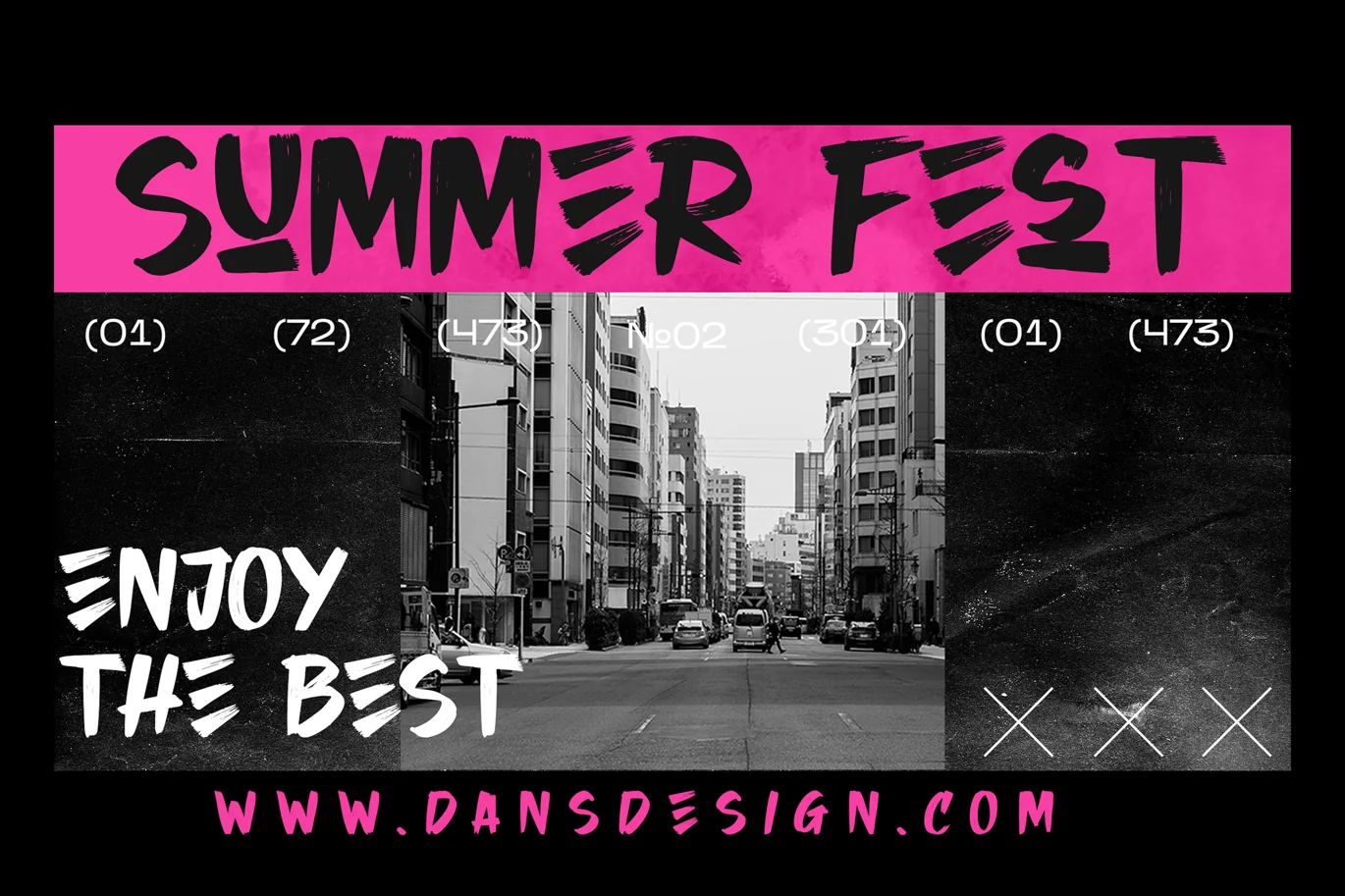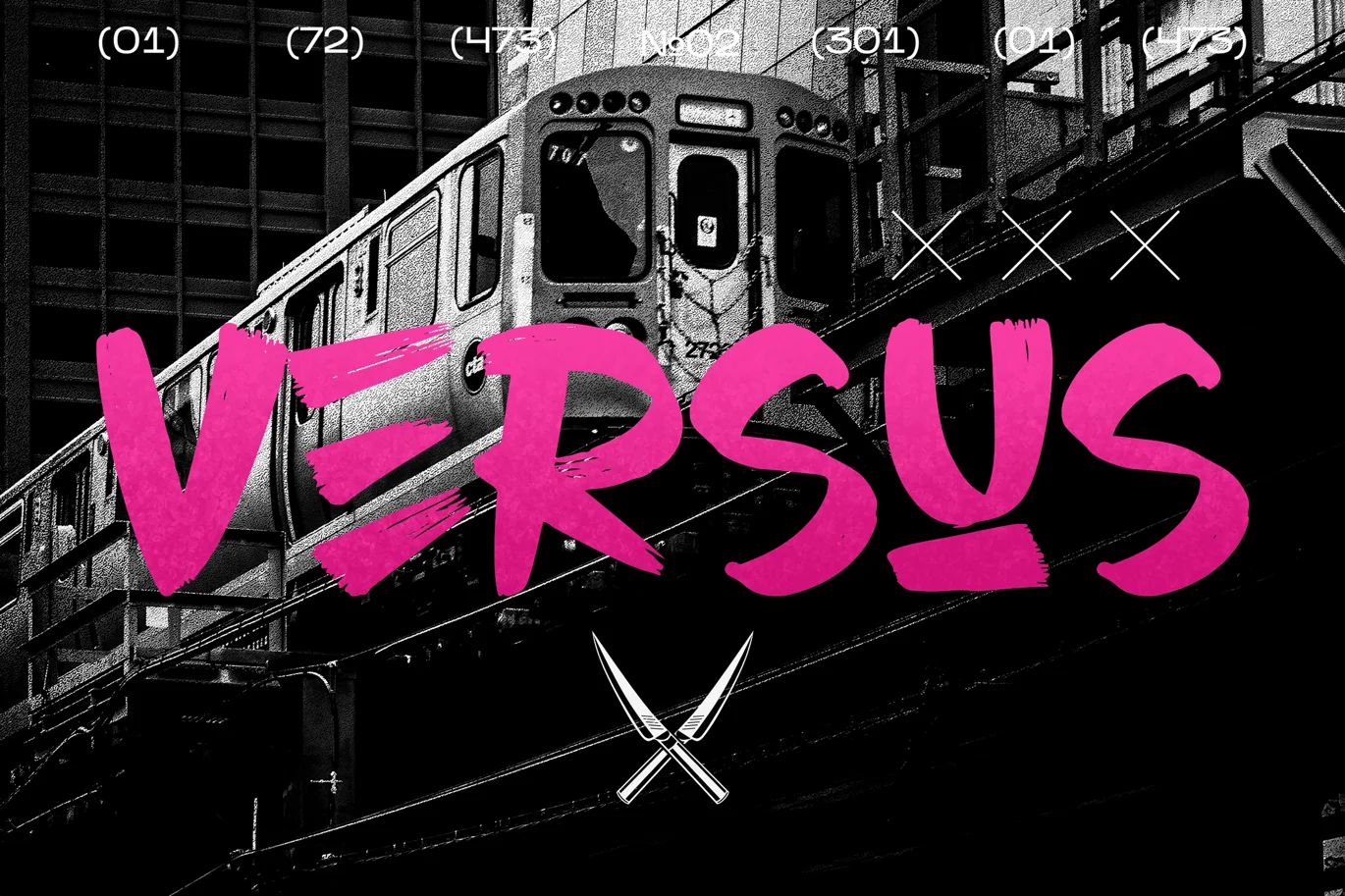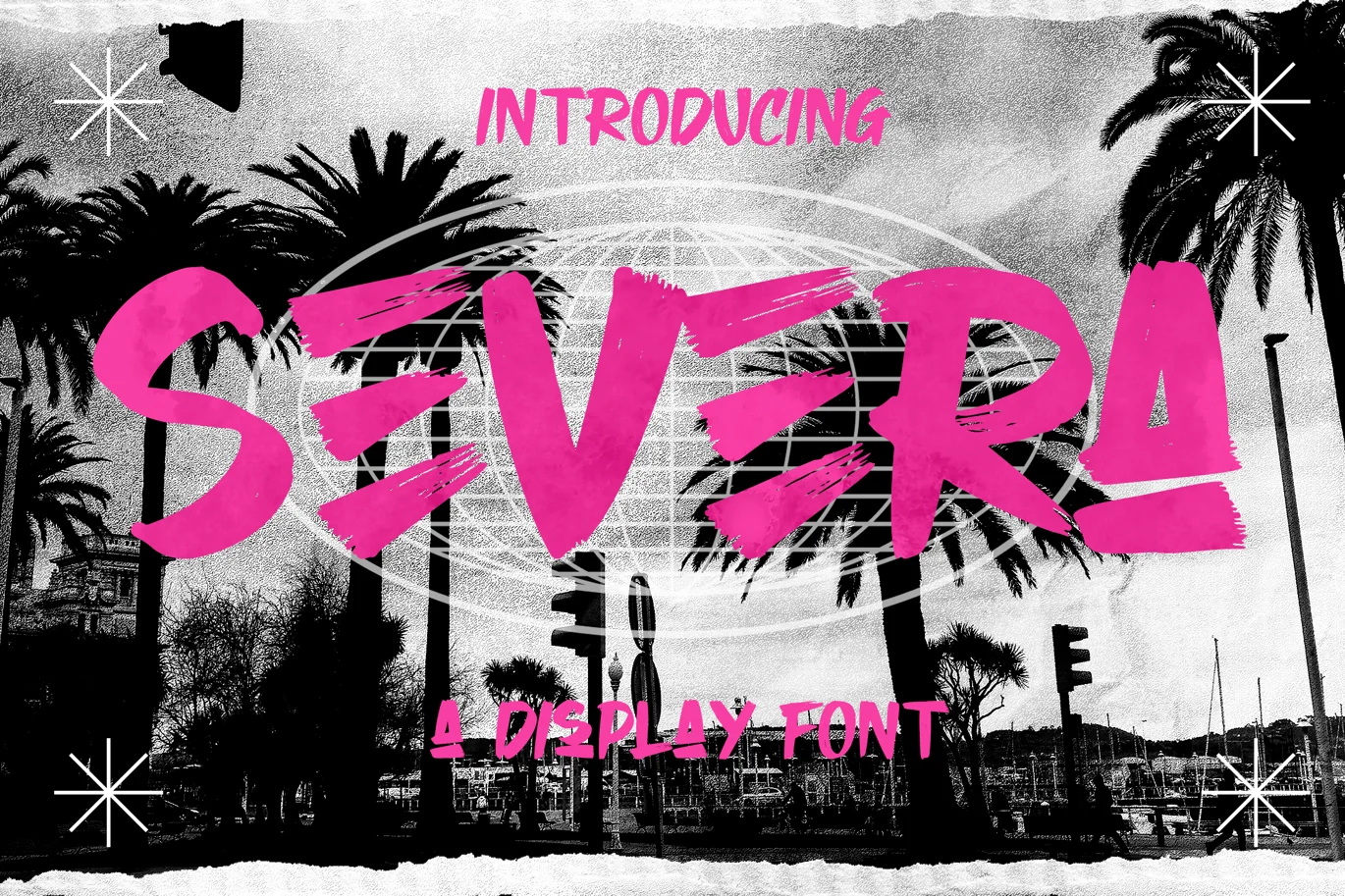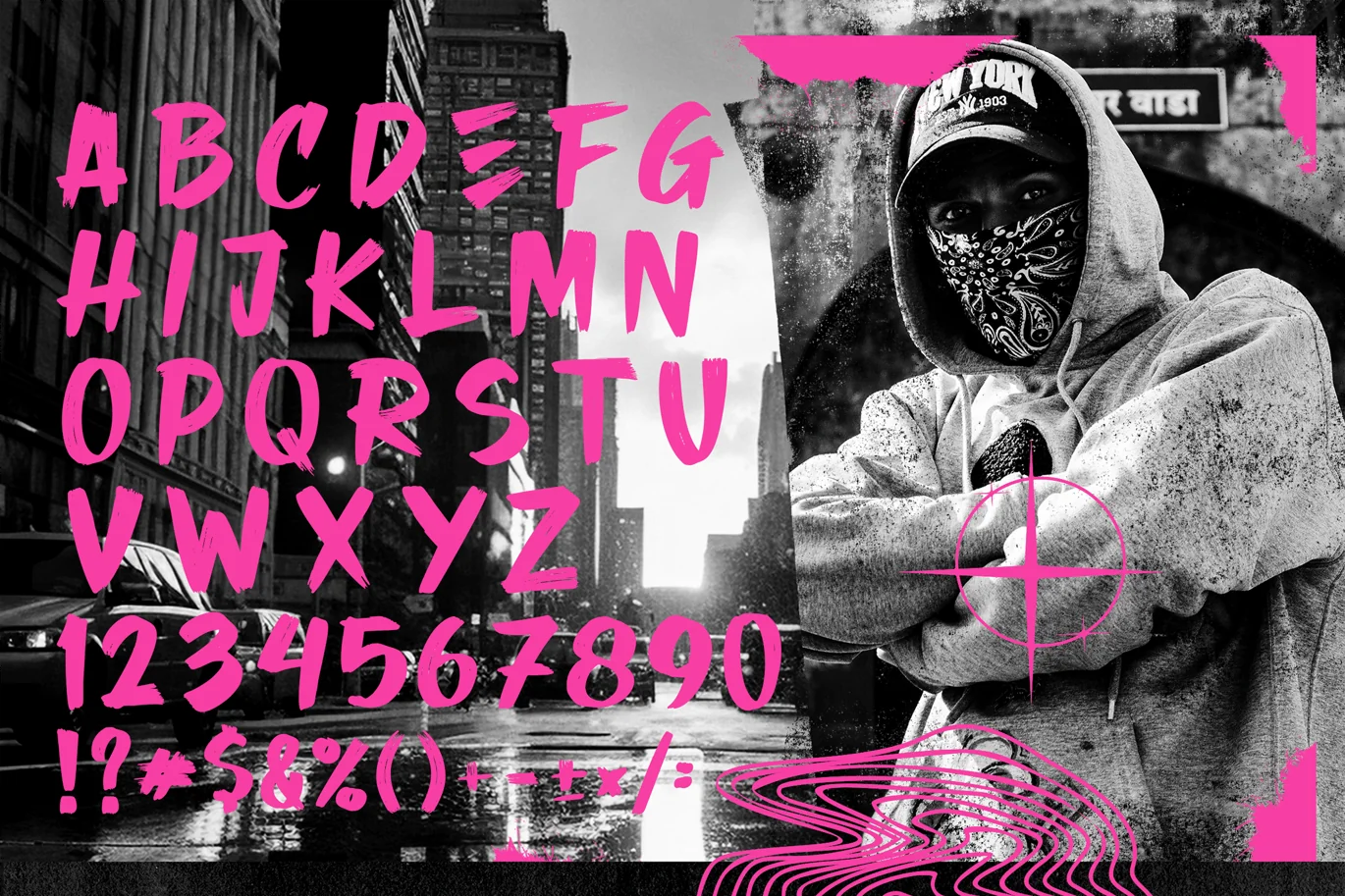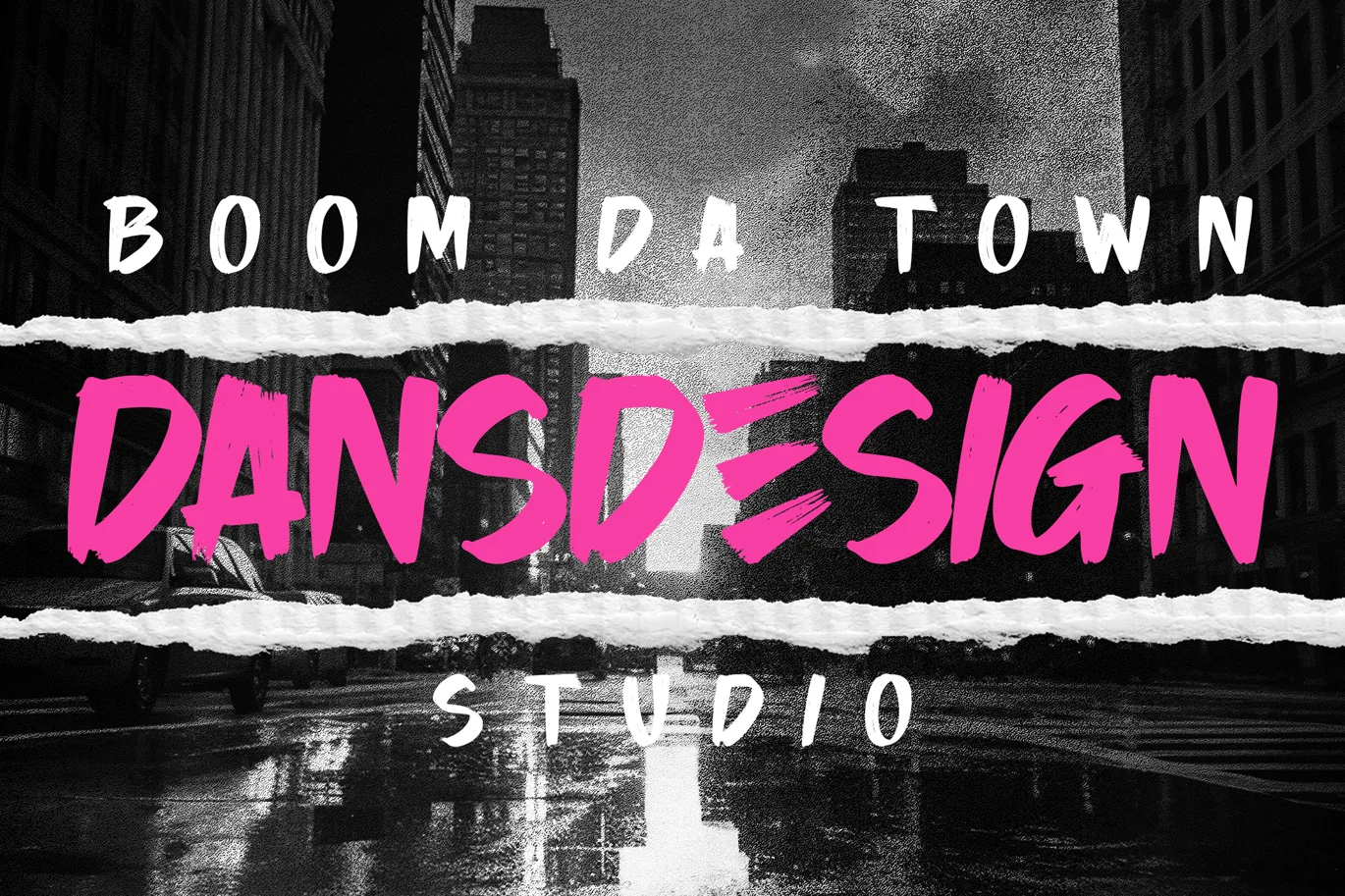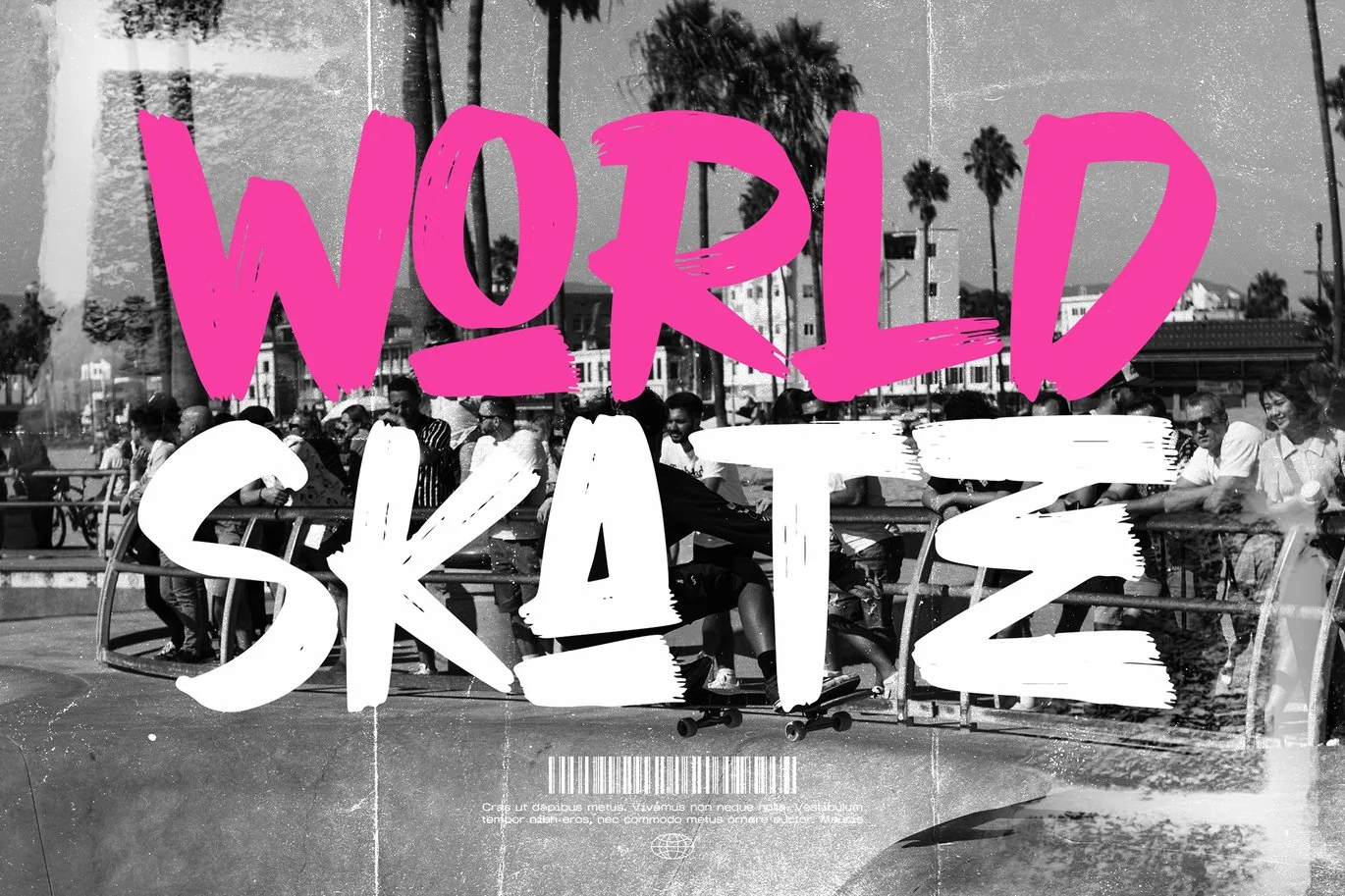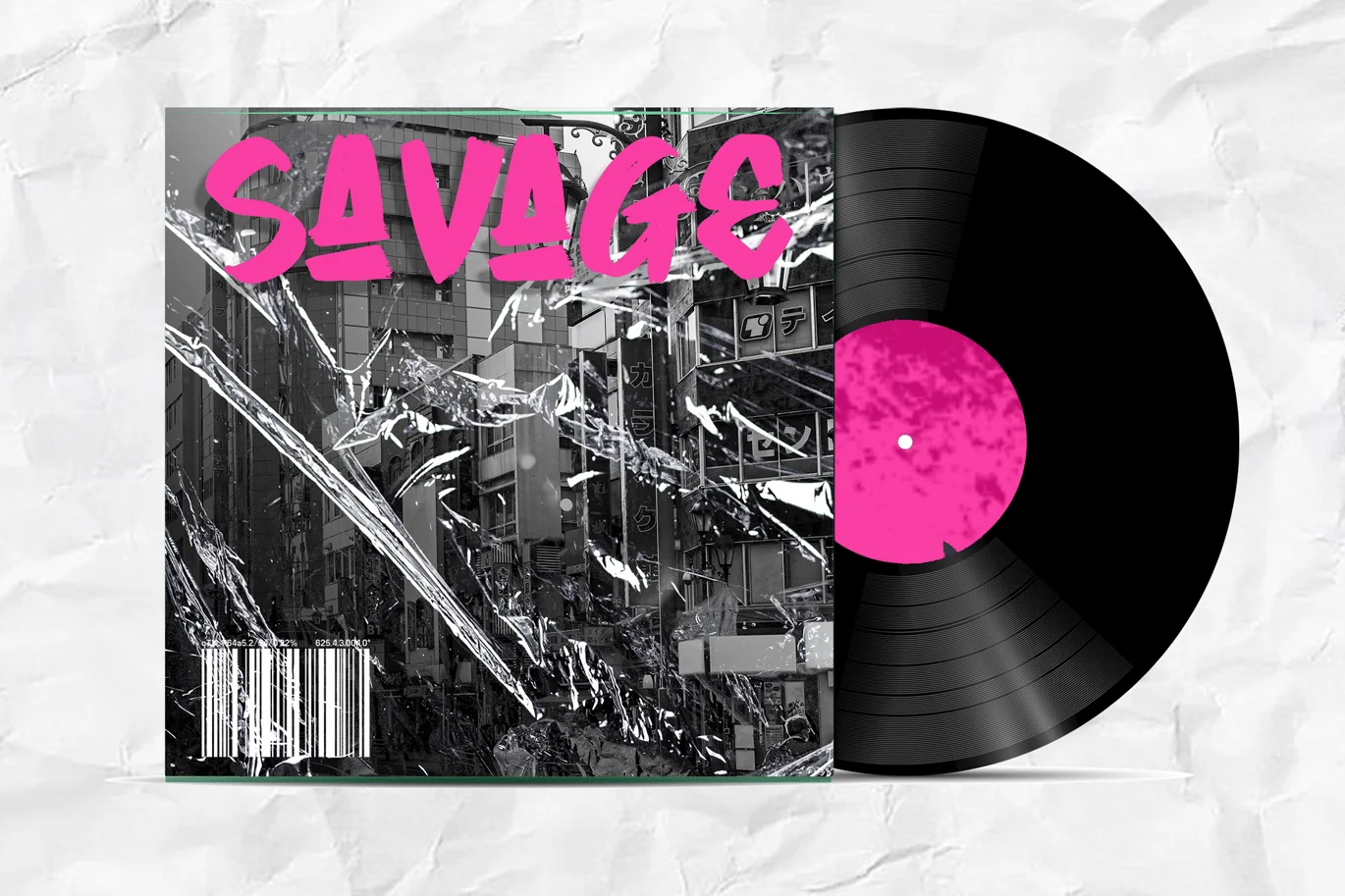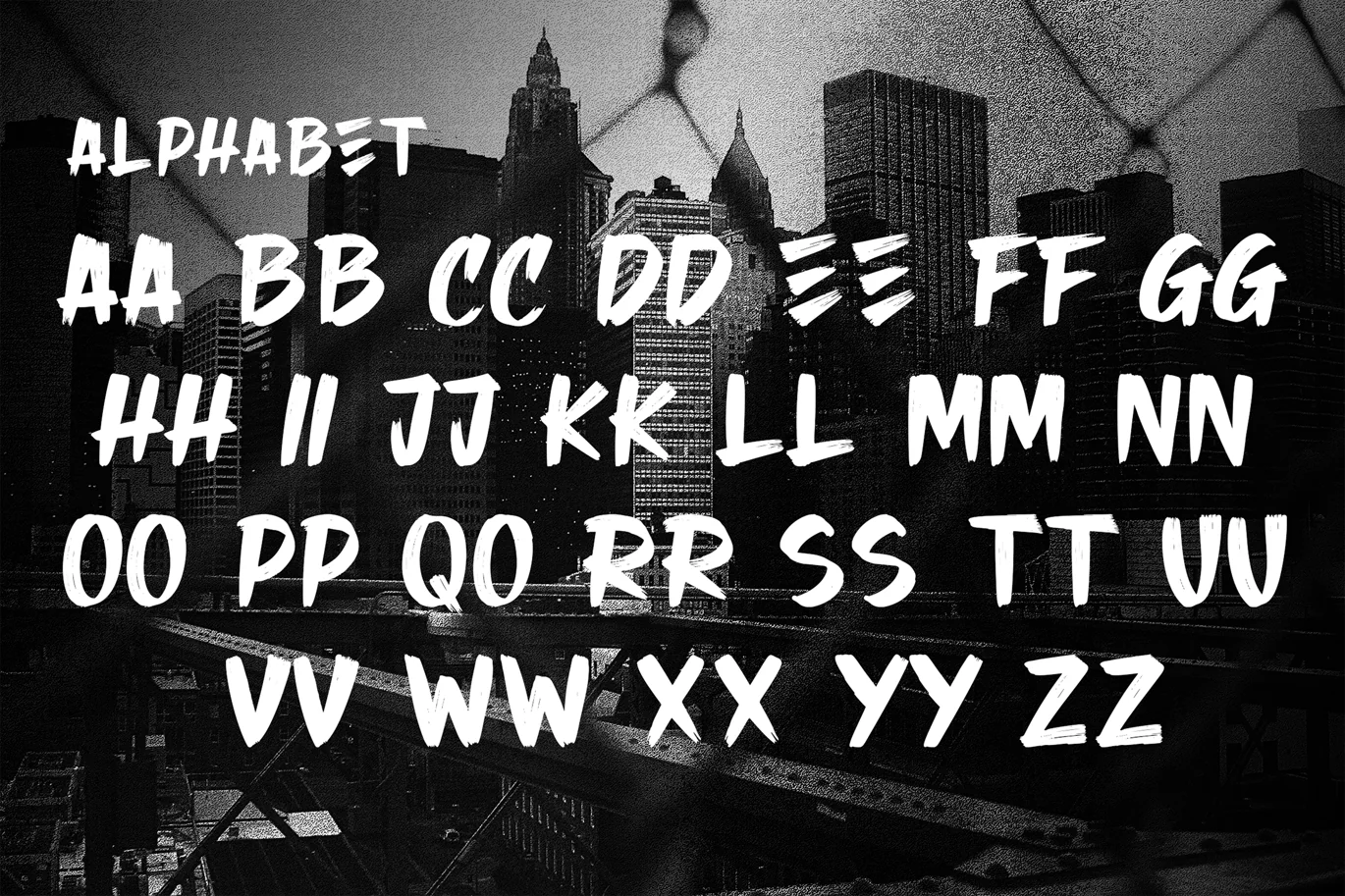
Severa Marker Brush Display Font
Severa Marker Brush Display Font a distinct, highly detailed. Marker Display Font.
It would make a great choice for exquisite retro-urban designs, business branding, logos, Apparel designs, and more.